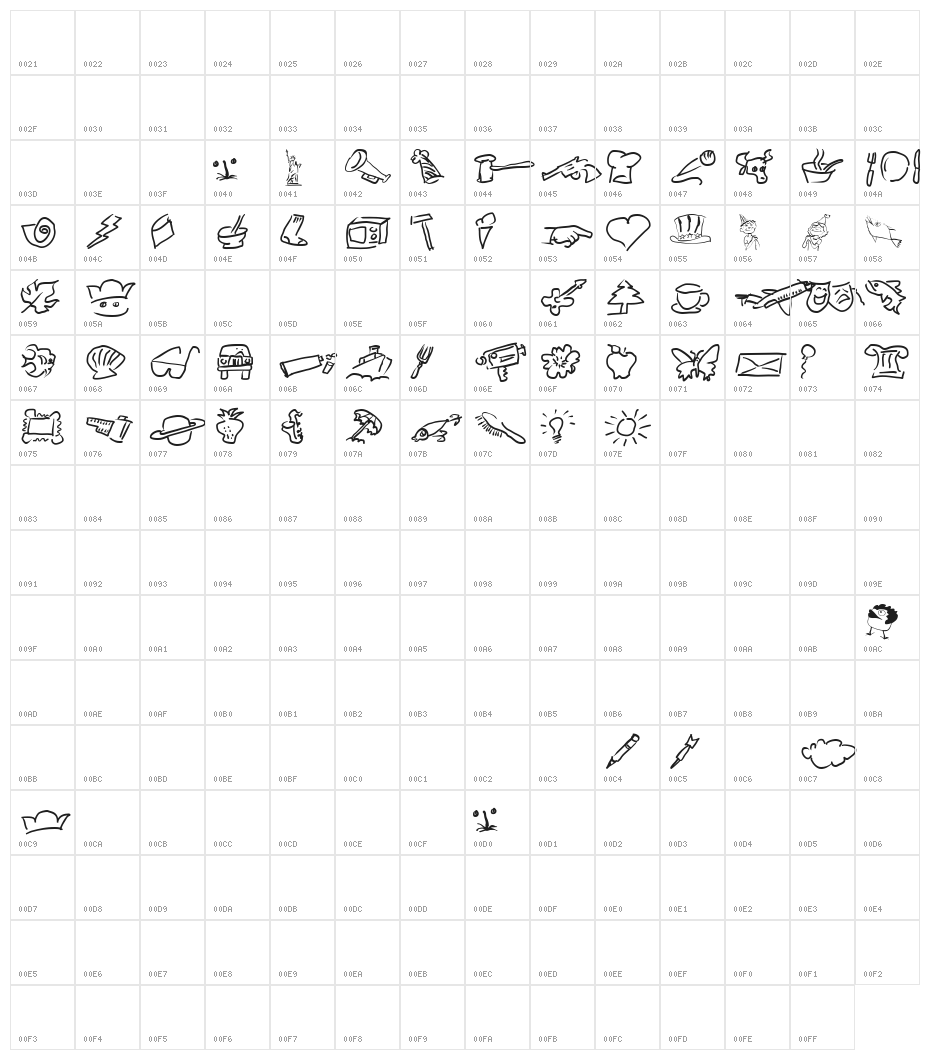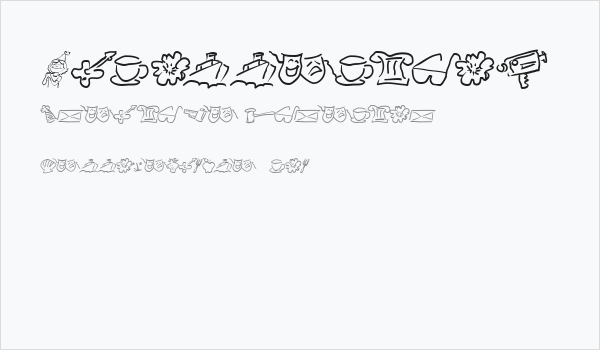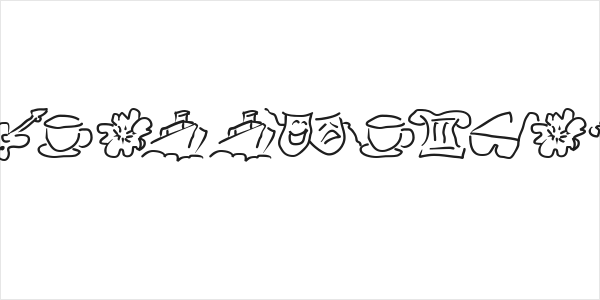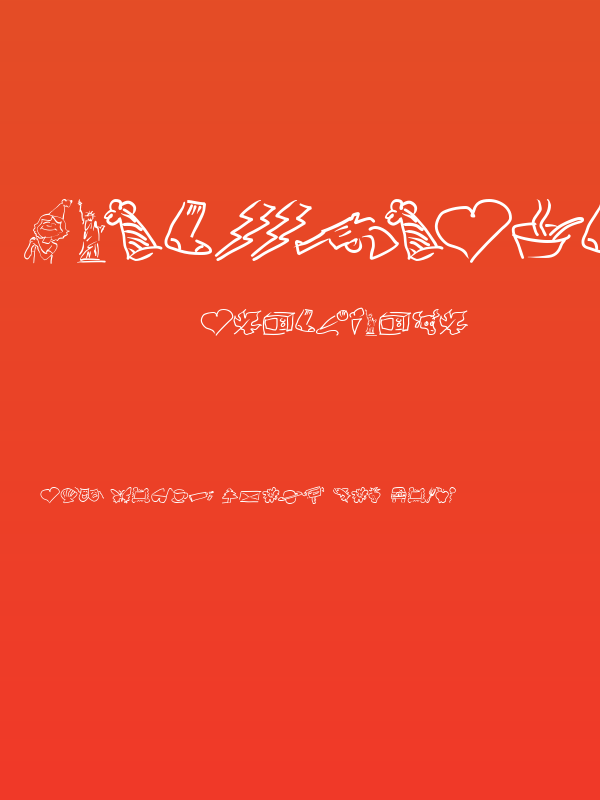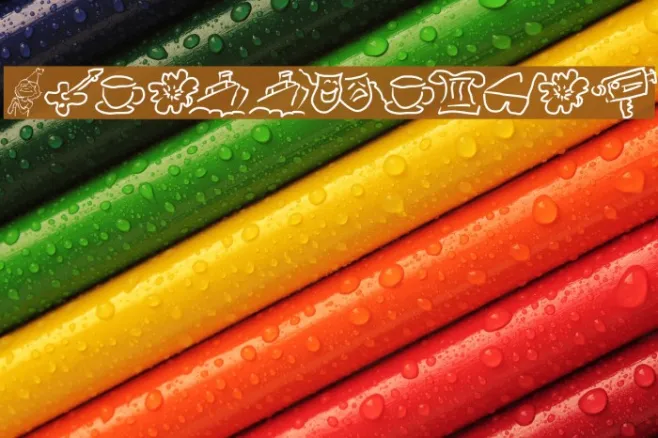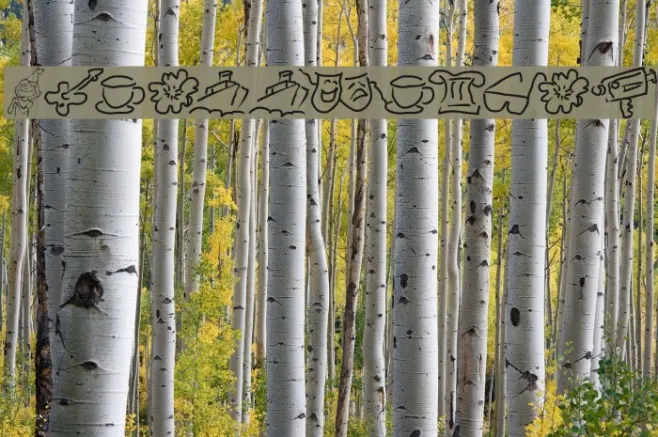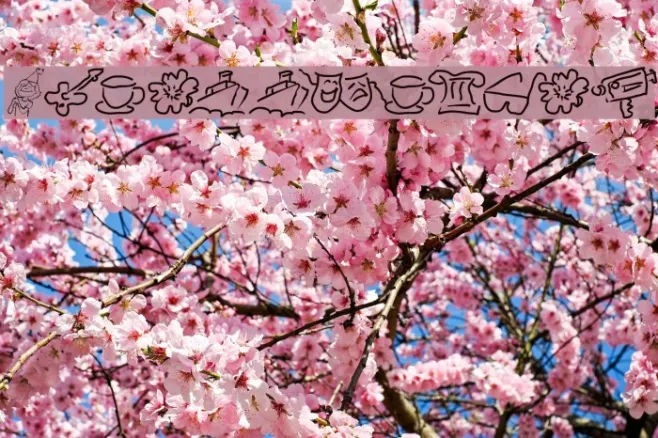
Wacollection Font
Wacollection Description
A playful, hand-drawn pictogram style where each character is represented by a unique doodle or icon, rather than traditional letterforms. The icons are outlined in a casual, sketch-like manner, giving a whimsical and informal appearance.
| Overall Style | Decorative, Whimsical, Playful |
| Use Case | Logos, Posters, Themed Graphics, Educational Materials |
| Proposed Projects | ChildrenΓ’β¬β’s books, educational materials, party invitations, creative posters, themed event branding. |